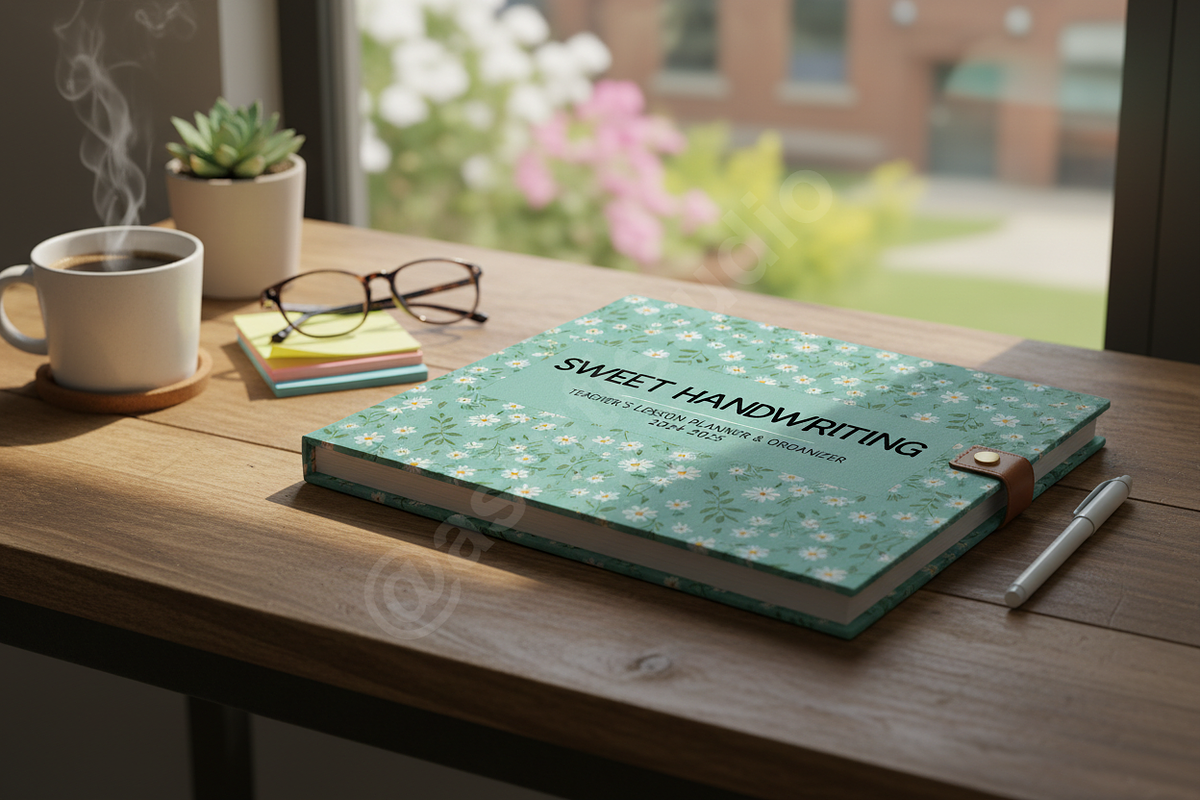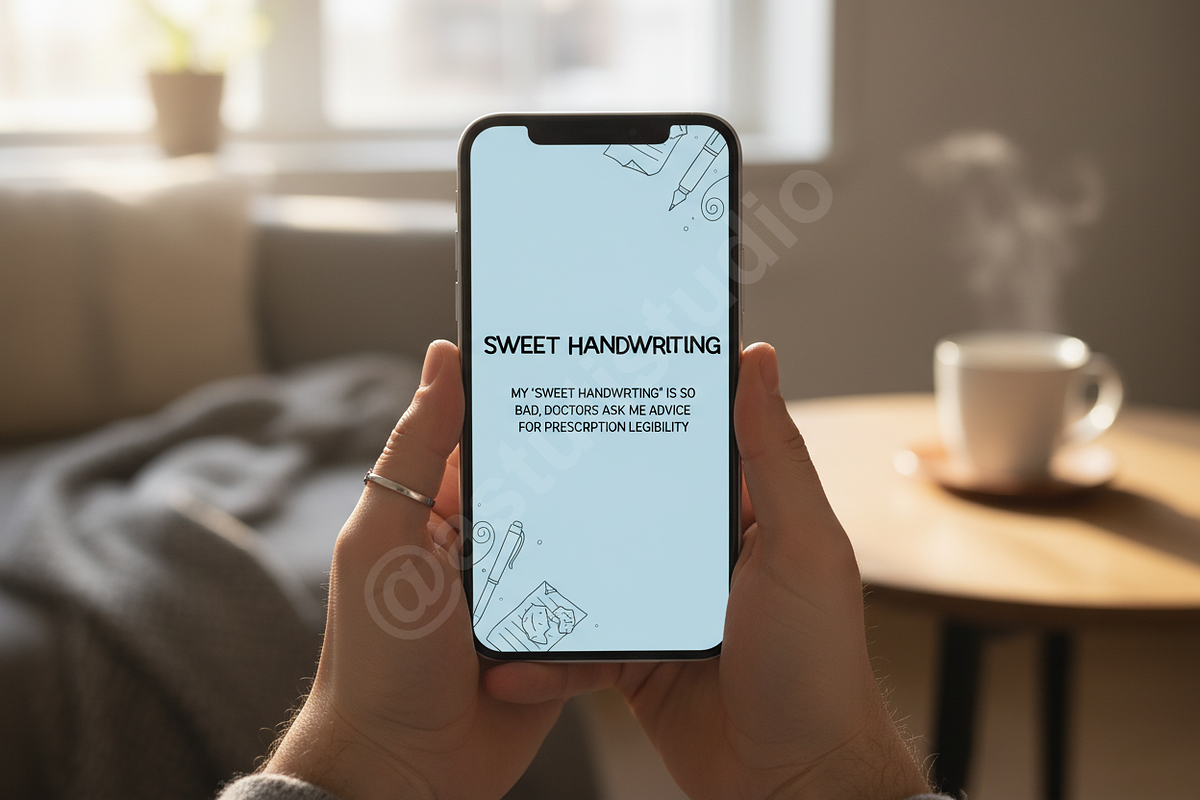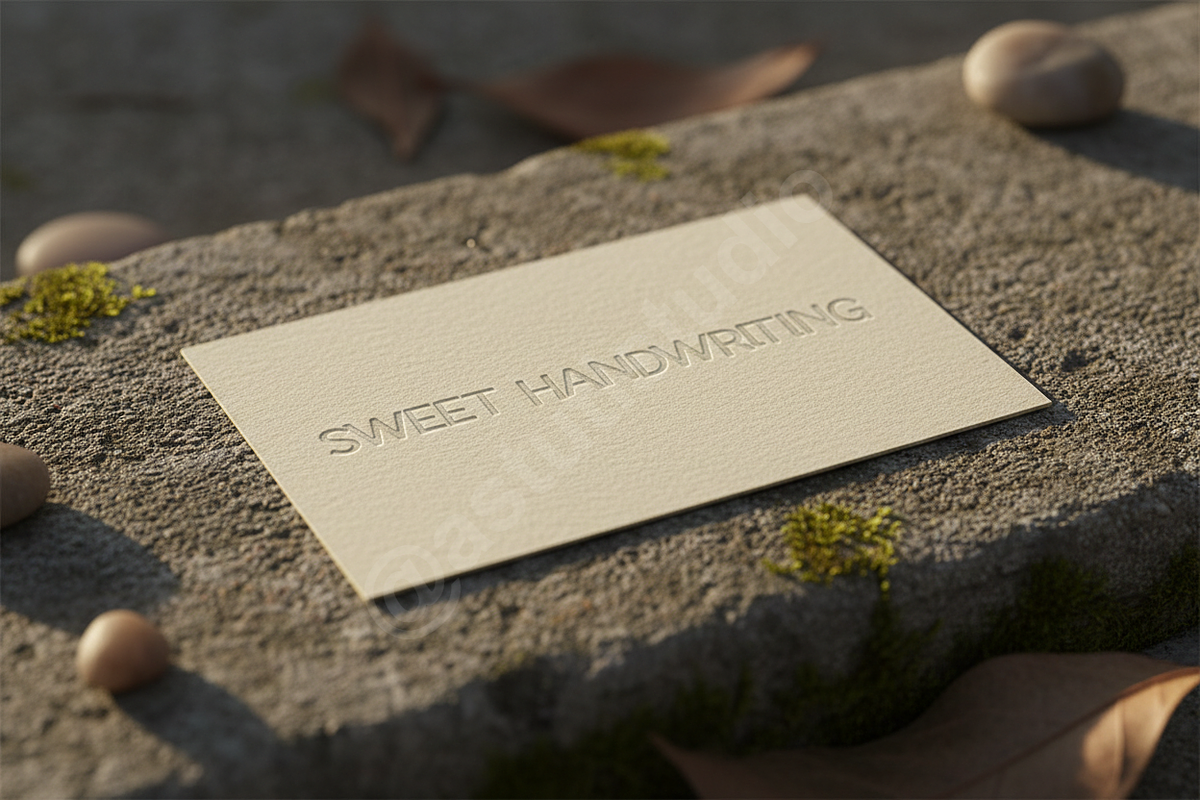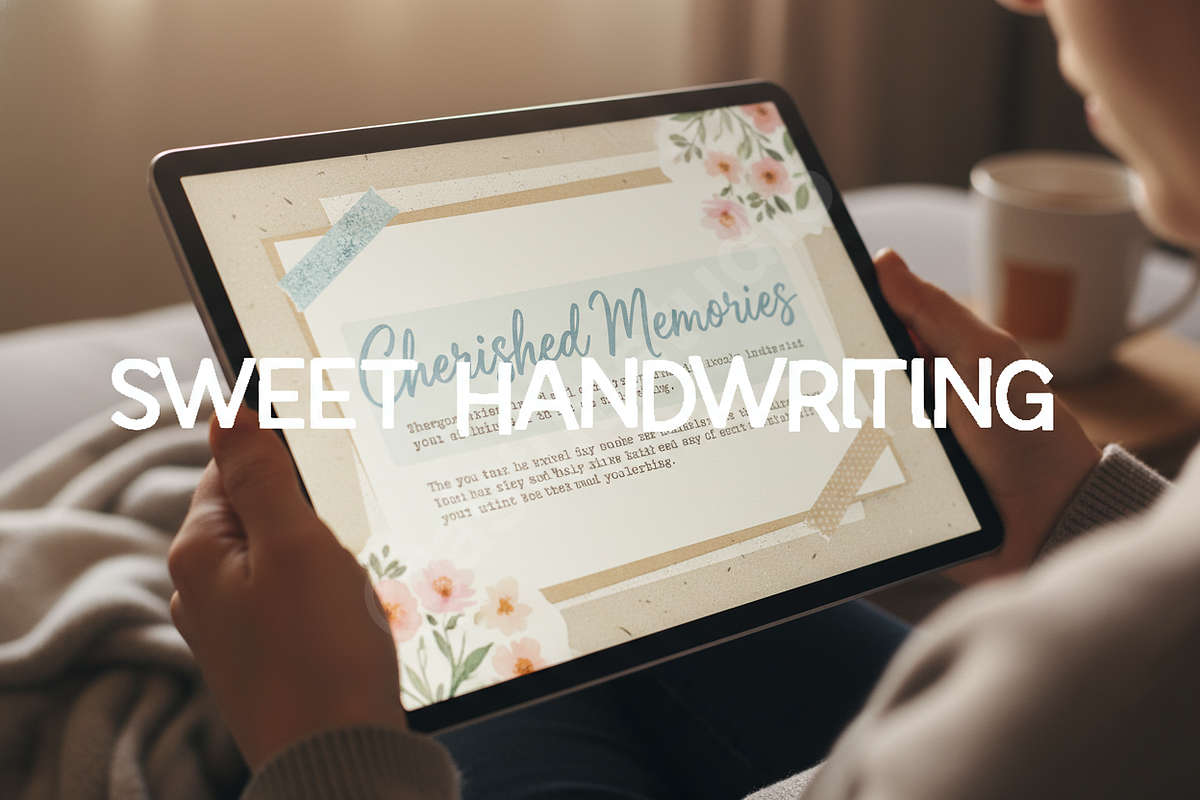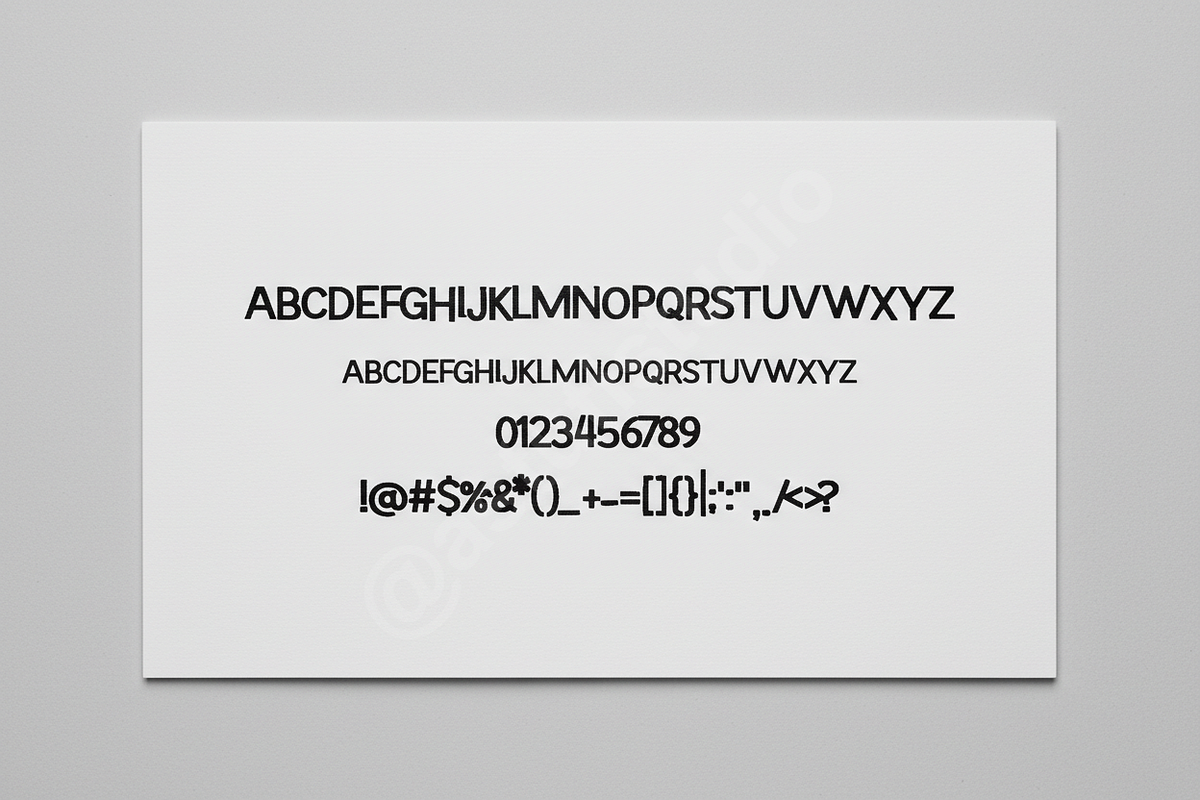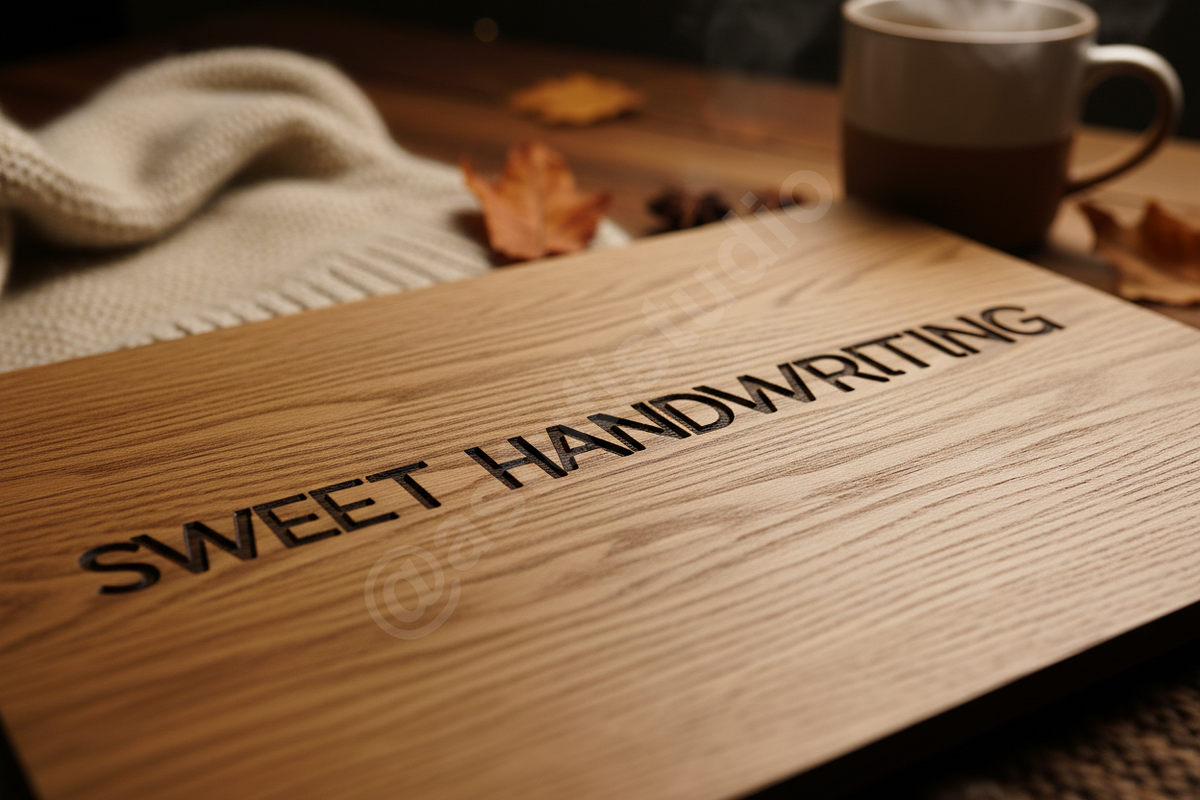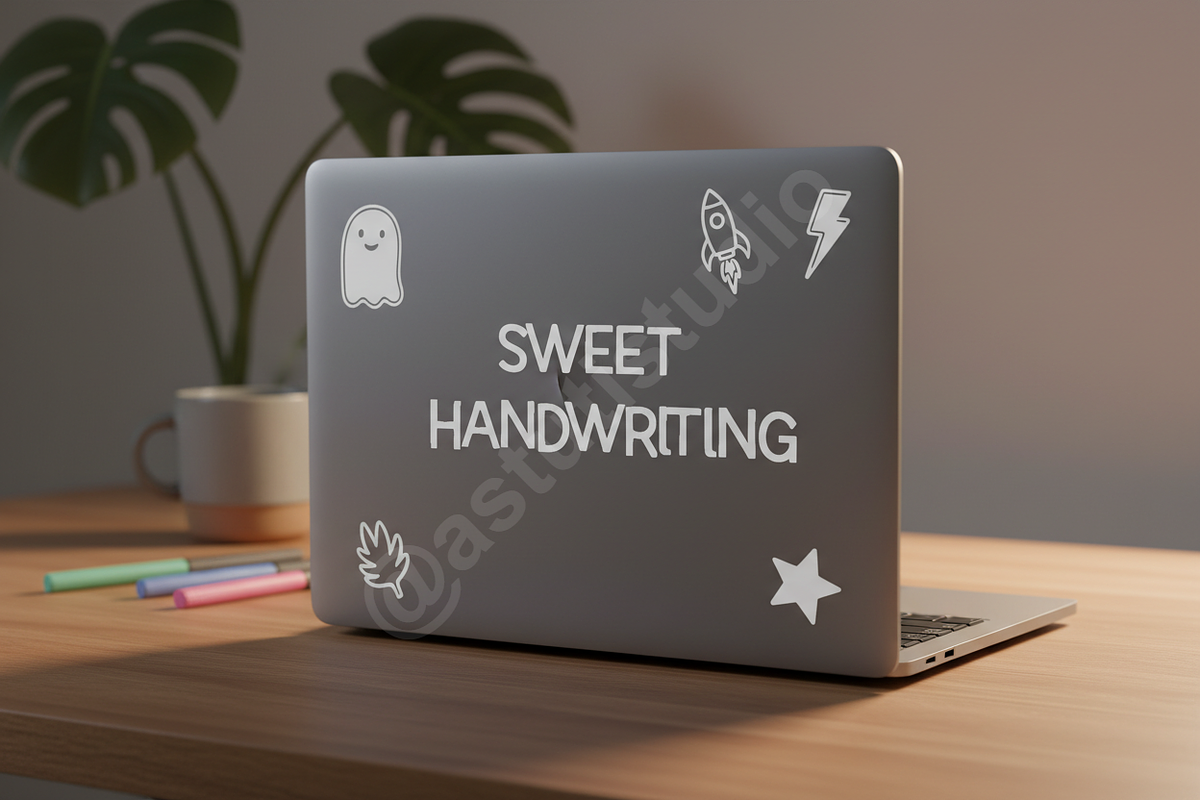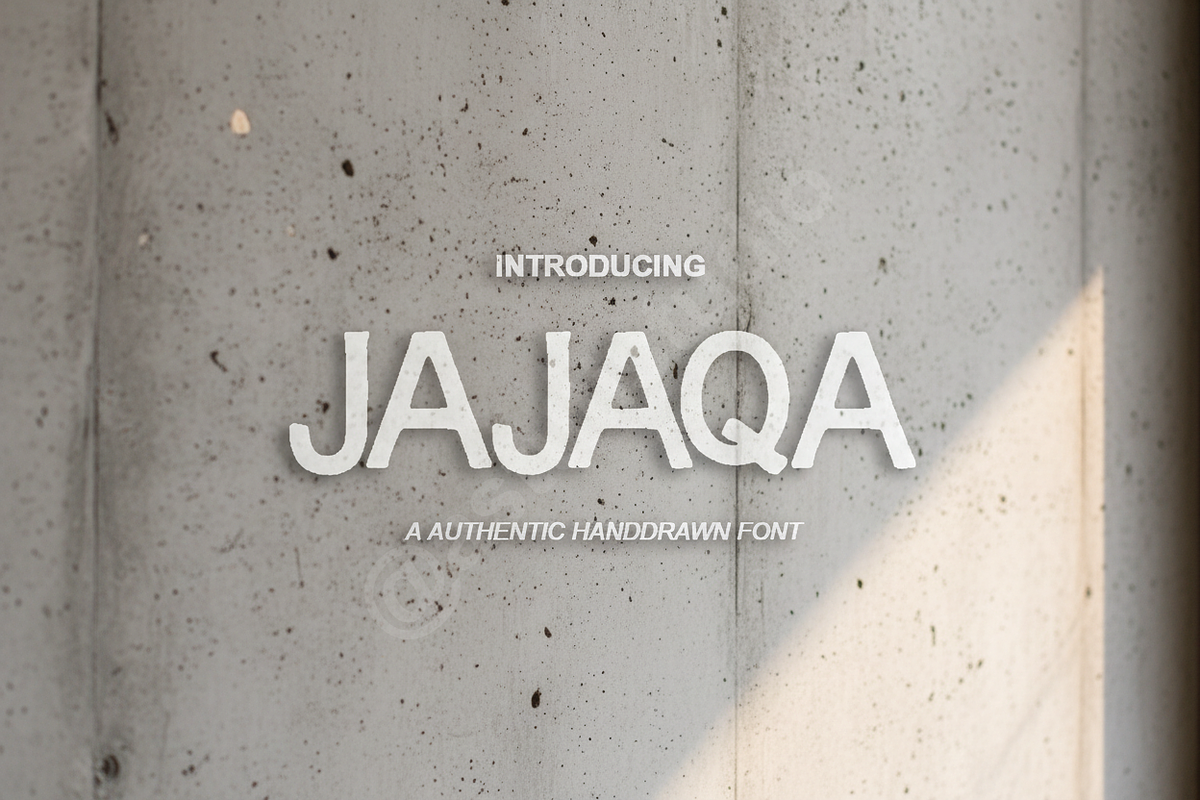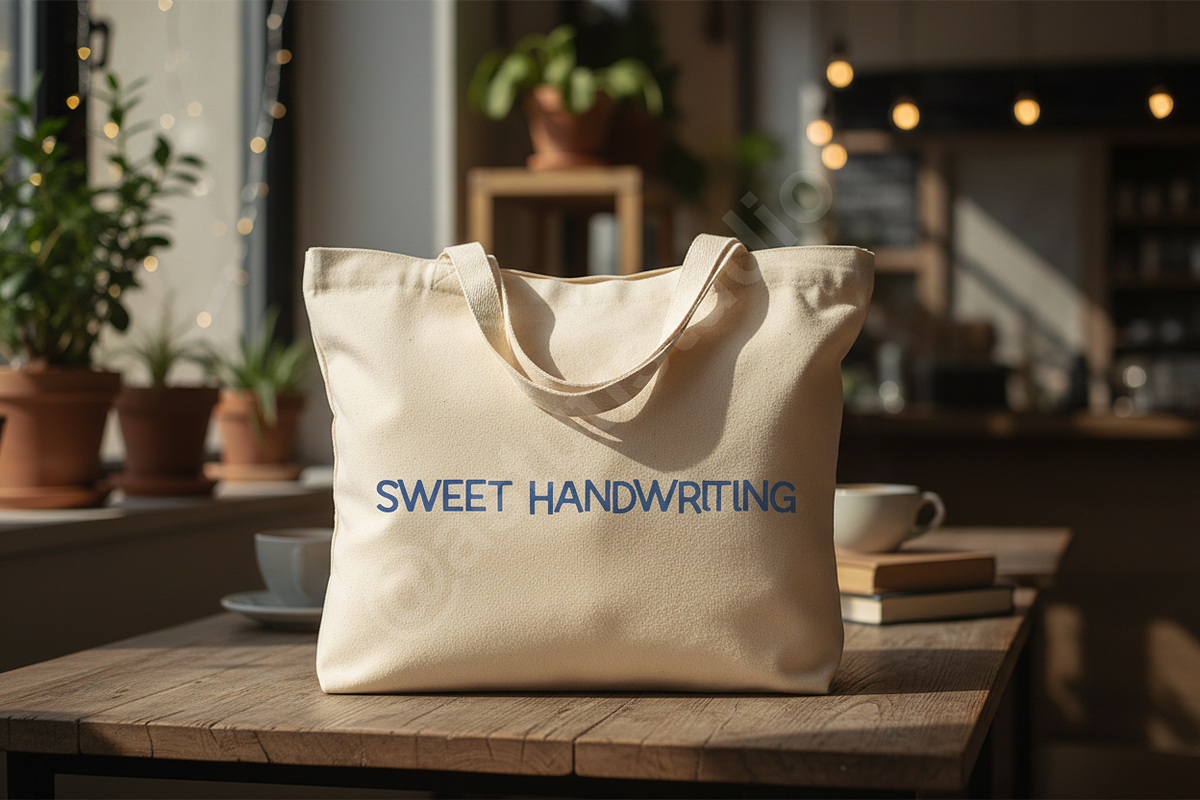
Jajaqa | Elegant Modern Serif Typefa
Jajaqa is a high-end serif typeface crafted for those who demand sophistication and timeless elegance in their design work. Inspired by modern editorial aesthetics, this font balances sharp terminals with soft, graceful curves, making it an ideal choice for luxury branding, high-fashion magazines, and elevated social media presence. Whether you are designing a boutique logo or a sleek layout for a digital lookbook, Jajaqa provides a premium studio feel that commands attention.
- Distinctive high-contrast serif design
- Extensive character set with stylish ligatures
- Full multilingual support for global reach
- Optimized kerning for professional layouts
- Versatile for both high-impact display and readable body text